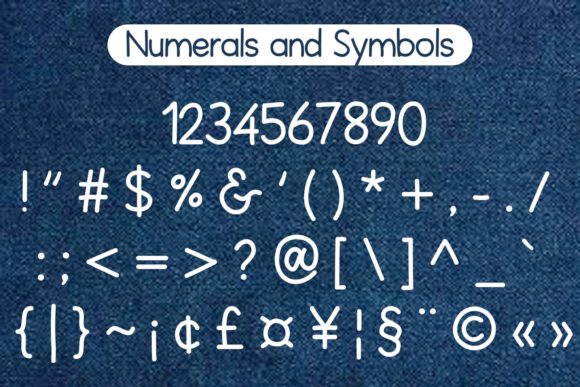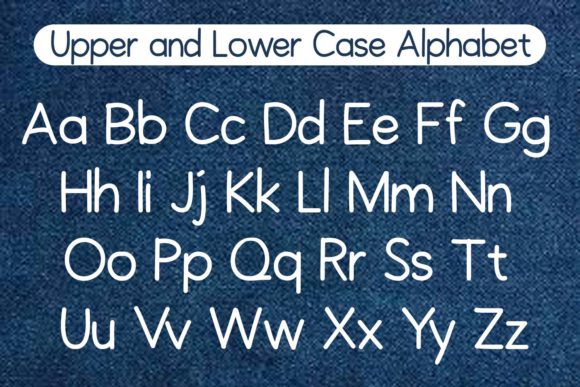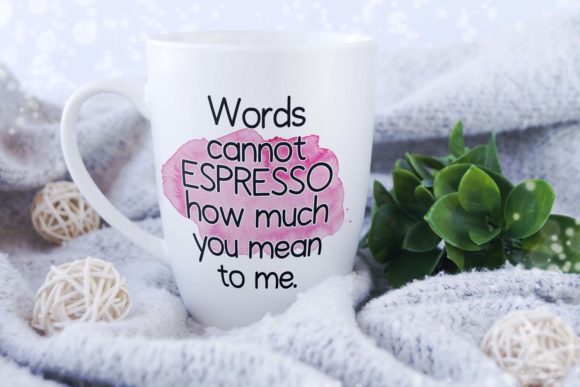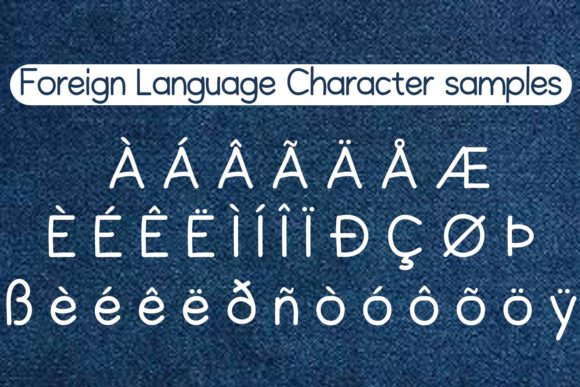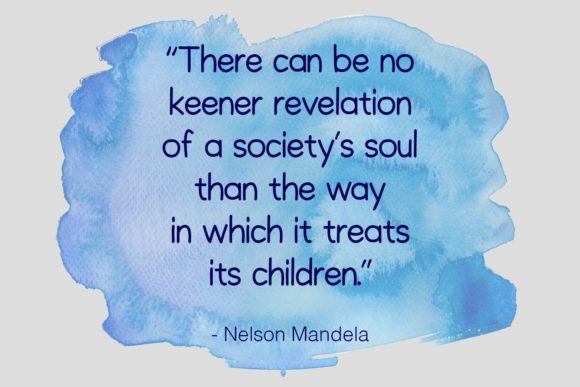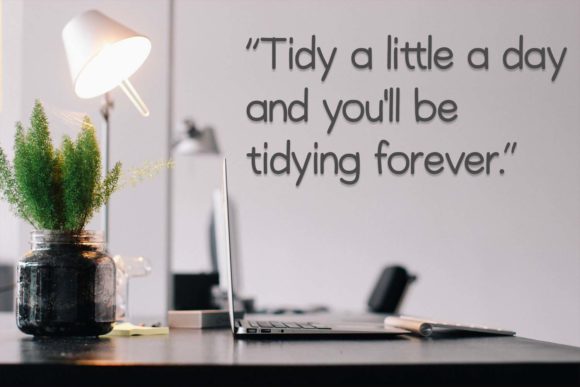
Introduction to Best in Writing Font
Best in Writing is a casual, yet elegant sans serif font that will effortlessly add a relaxed vibe to any design.
Best in Writing is a casual, yet elegant sans serif font that will effortlessly add a relaxed vibe to any design!
Key Features of Best in Writing Font